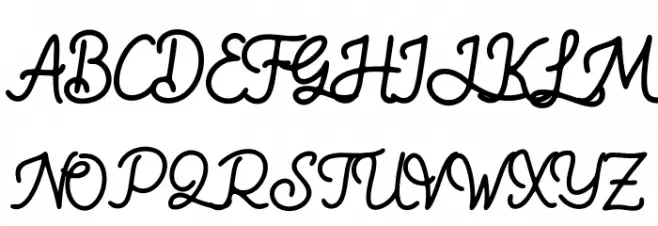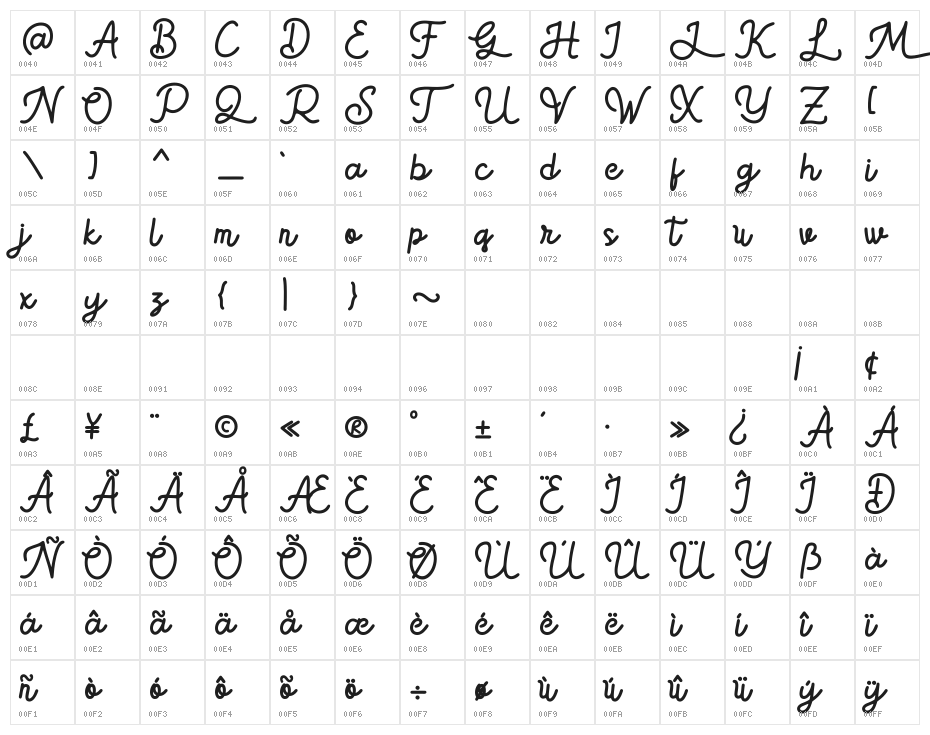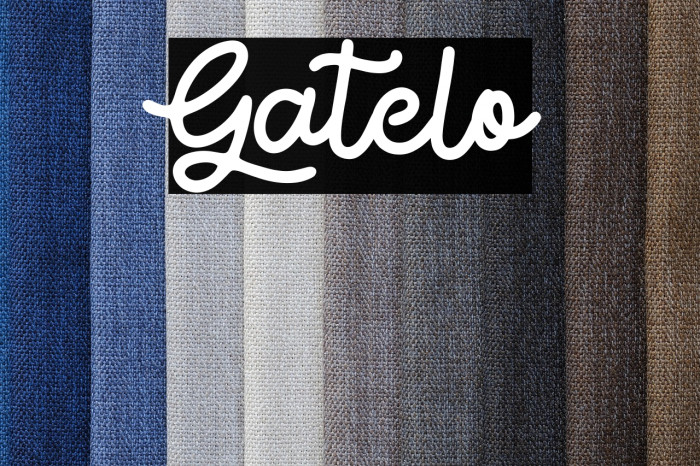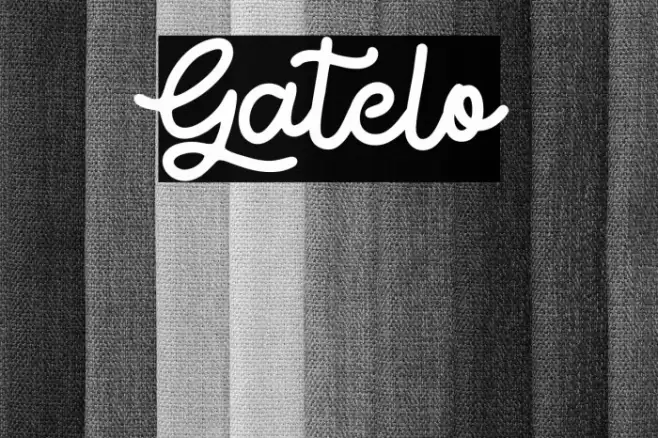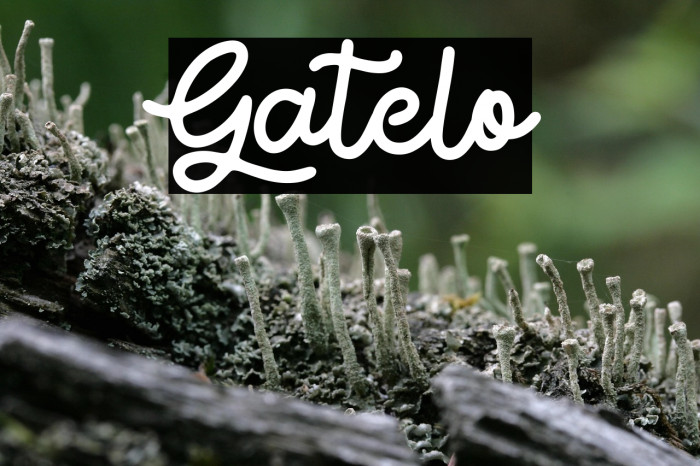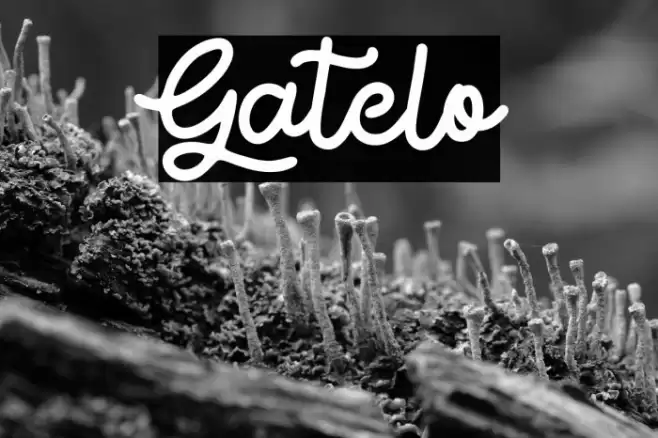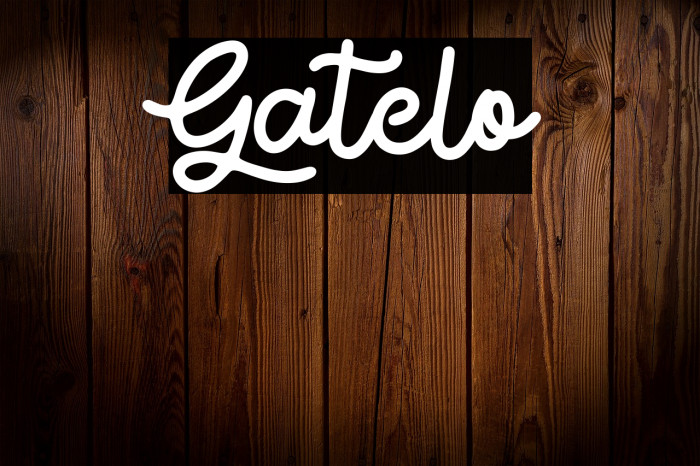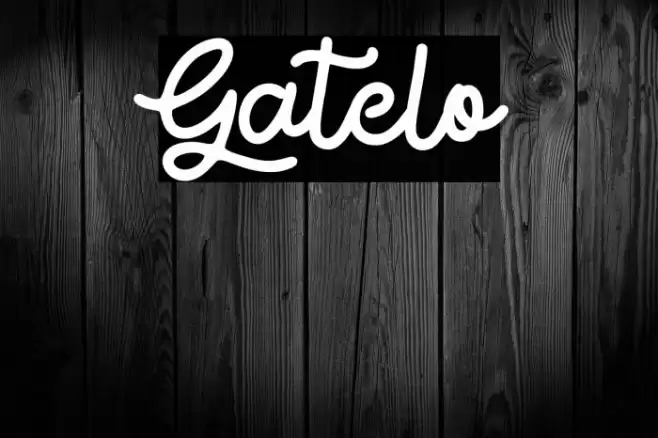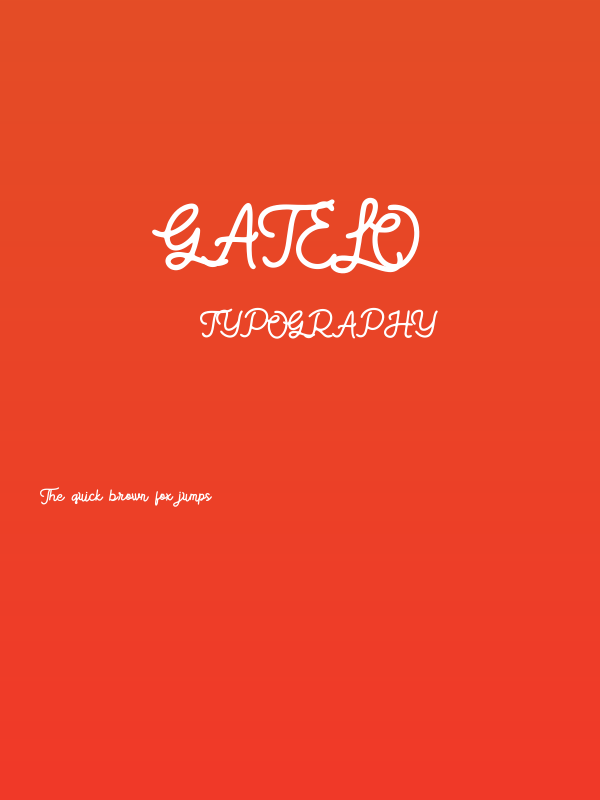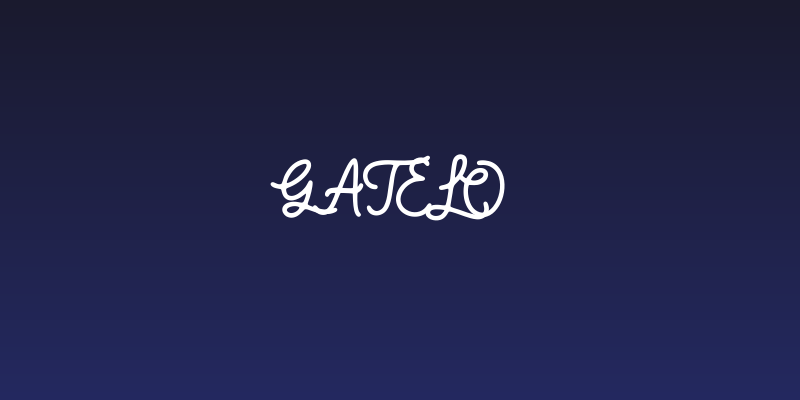
Gatelo Font
Gatelo Description
This font features a playful and dynamic script style with a handwritten appearance. The letters are interconnected, creating a flowing and continuous look that adds a sense of movement and energy. The uppercase and lowercase letters maintain a consistent style, with rounded edges and smooth curves. The font's boldness enhances its visibility, making it suitable for eye-catching designs. The numbers and special characters are designed to match the overall aesthetic, ensuring a cohesive look across all elements. This font is ideal for projects that require a personal touch or a creative flair.
| Proposed Projects | Ideal for greeting cards, invitations, logos, and branding materials that require a personal and creative touch. |